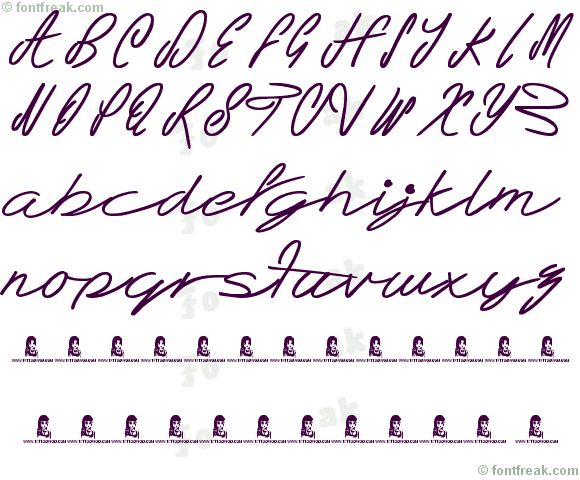
Teddy Bear
About Teddy Bear
The Teddy Bear font, designed by Jonathan S. Harris, is a delightful handwritten typeface that exudes charm and warmth. Characterized by its soft, flowing lines, this font brings a playful yet elegant touch to any project. The stroke weight is consistent, offering a gentle contrast that enhances readability while maintaining a whimsical aesthetic. The letters are well-spaced, which contributes to a balanced appearance, making it ideal for various applications.
This decorative font is perfect for a range of use cases. It shines in wedding invitations, where its playful elegance can set a romantic tone. Additionally, it is well-suited for children's book covers, creating a friendly and inviting atmosphere. The Teddy Bear font can also elevate restaurant menus, adding a unique flair that draws customers in. For graphic designers working on branding or promotional materials for a boutique or artisanal shop, this font provides a personal touch that resonates with a creative audience. Content creators can utilize it in social media graphics or blog headings, ensuring a friendly and approachable vibe that engages readers.
What sets the Teddy Bear font apart is its ability to evoke nostalgia and warmth while remaining versatile. Whether used in a playful context or for more serious branding, this font adapts beautifully, making it an excellent choice for anyone looking to add a touch of personality to their work. Don’t miss the opportunity to enhance your designs with the Teddy Bear font free download.